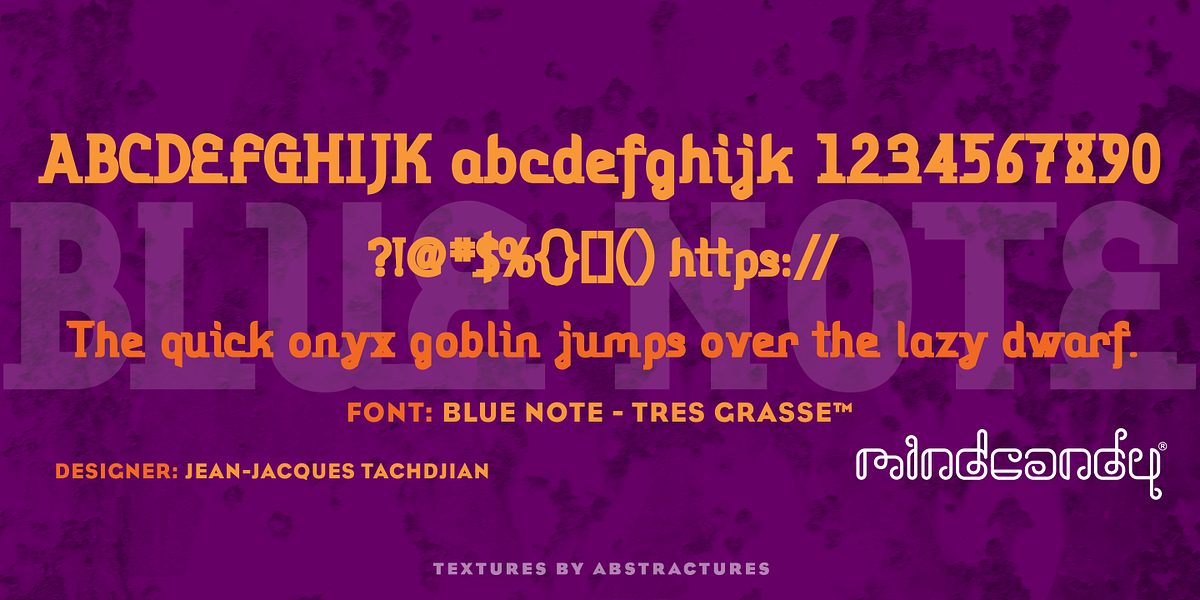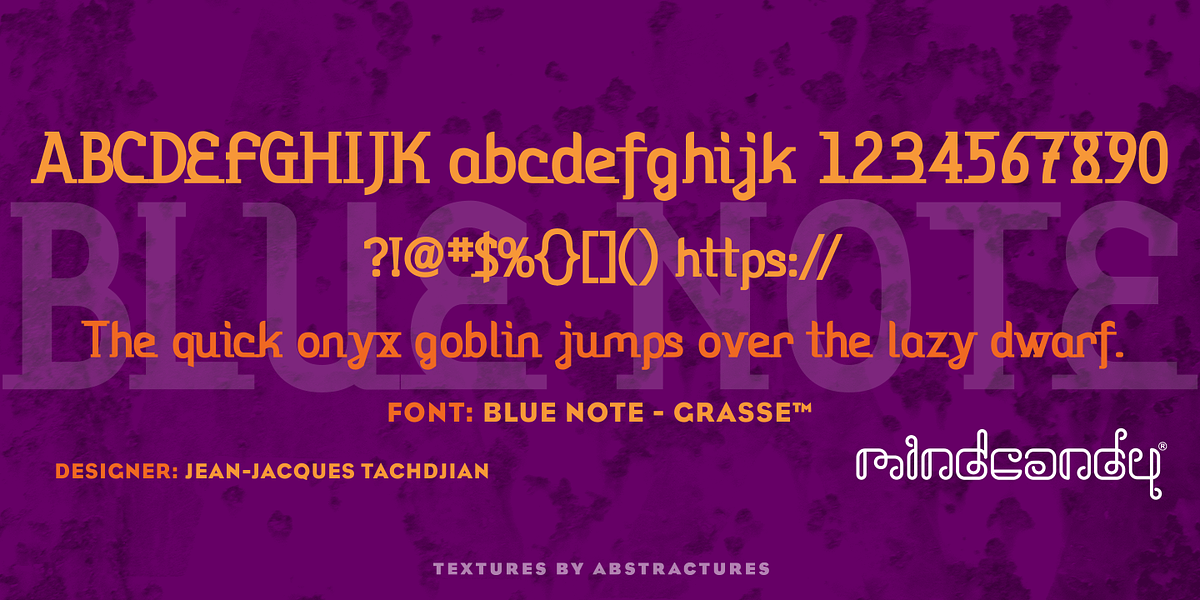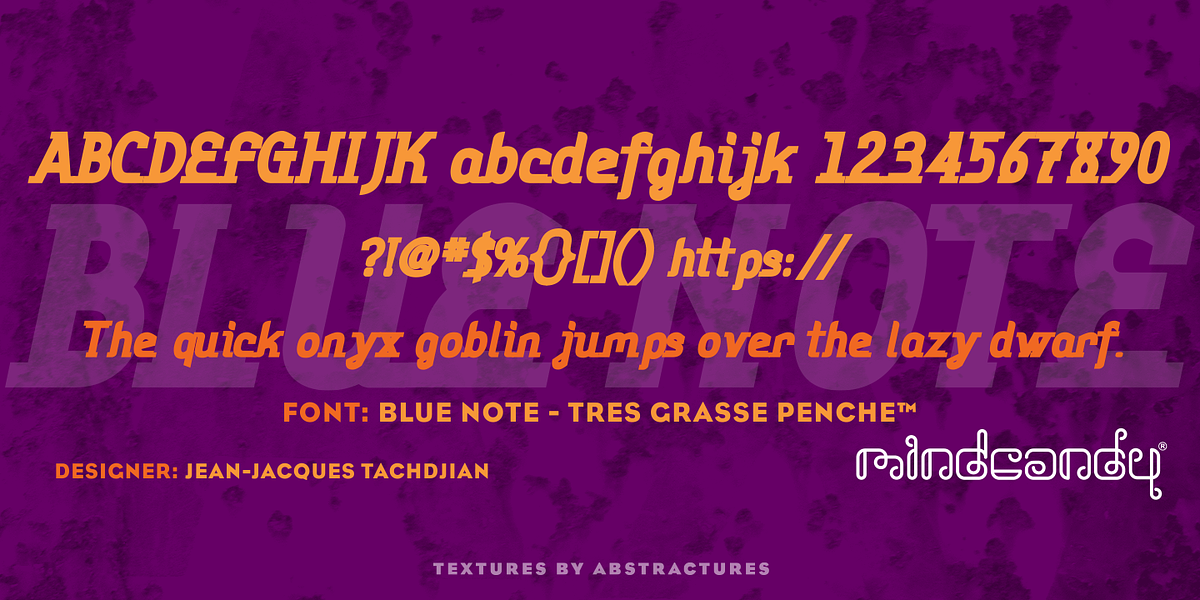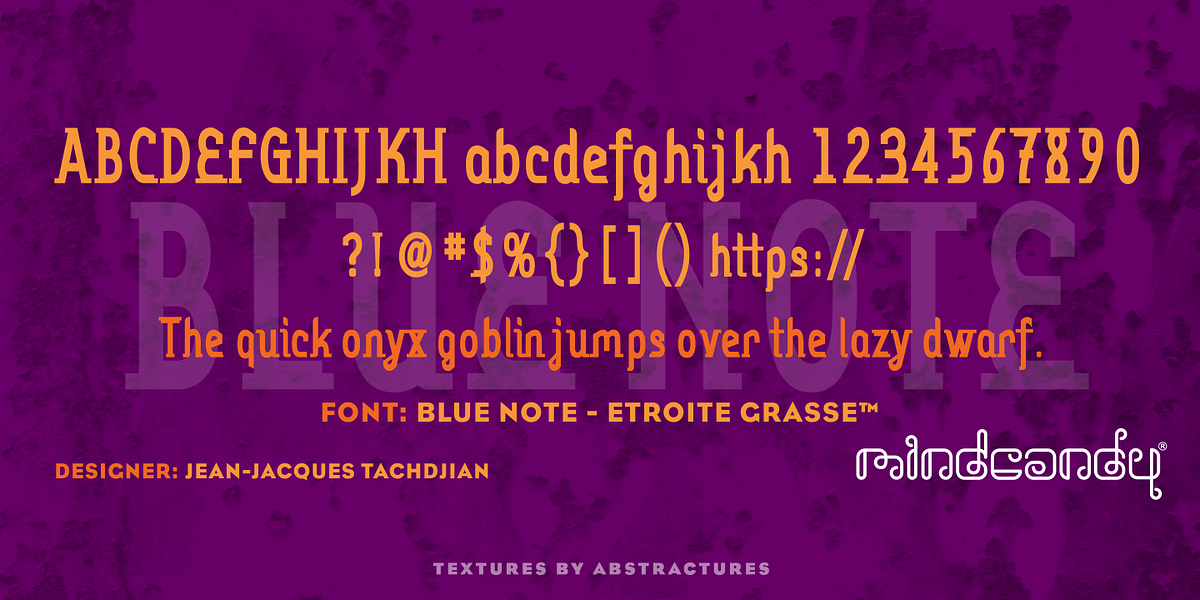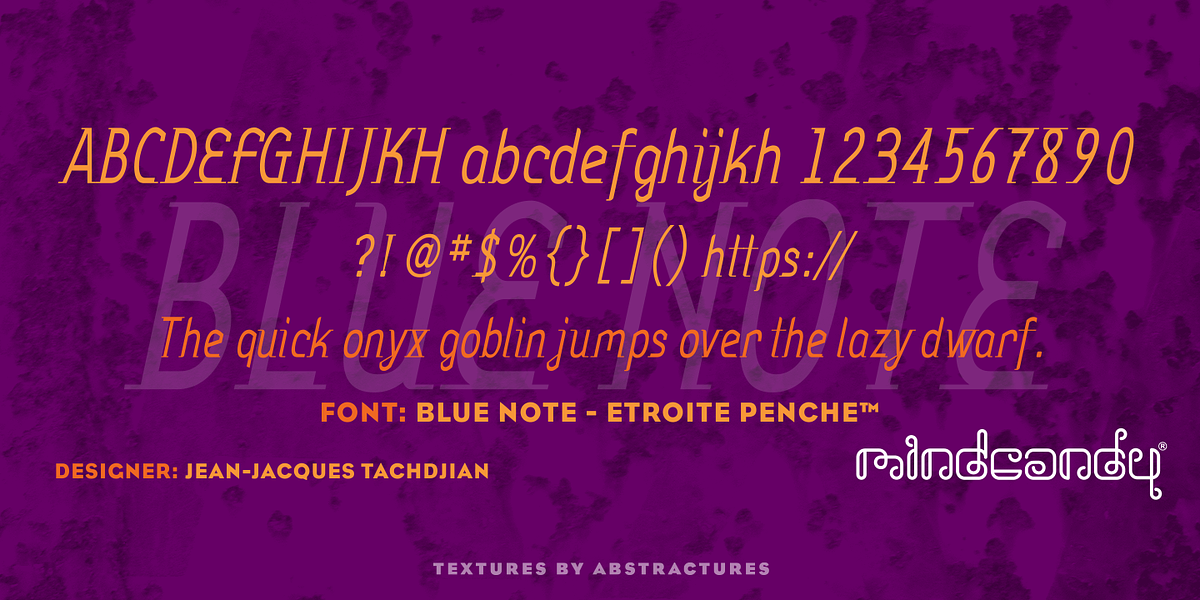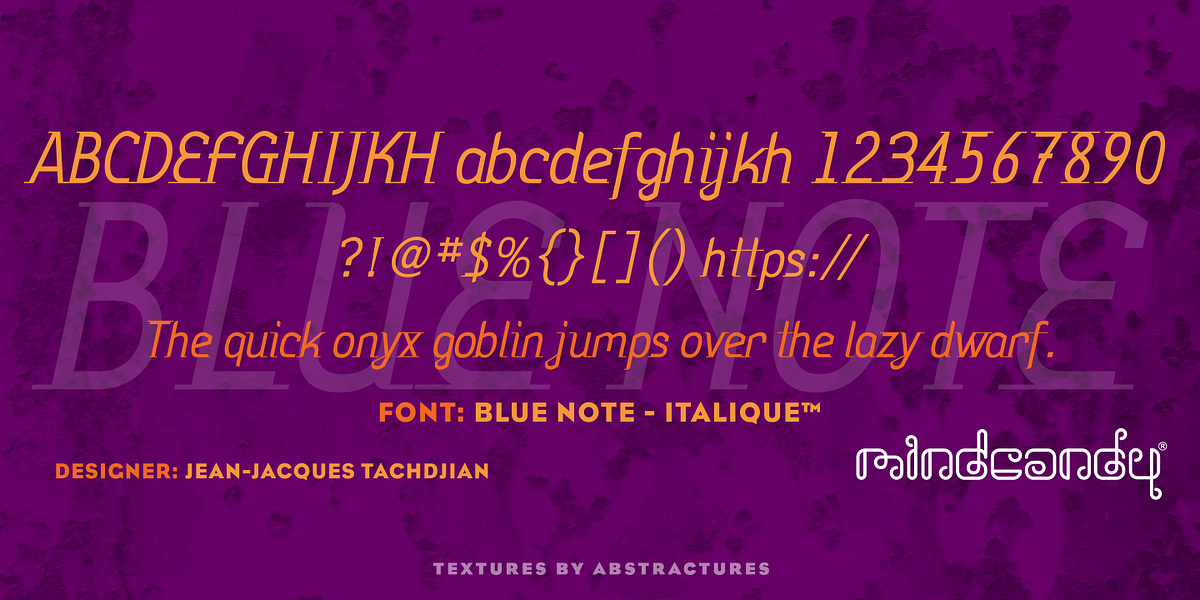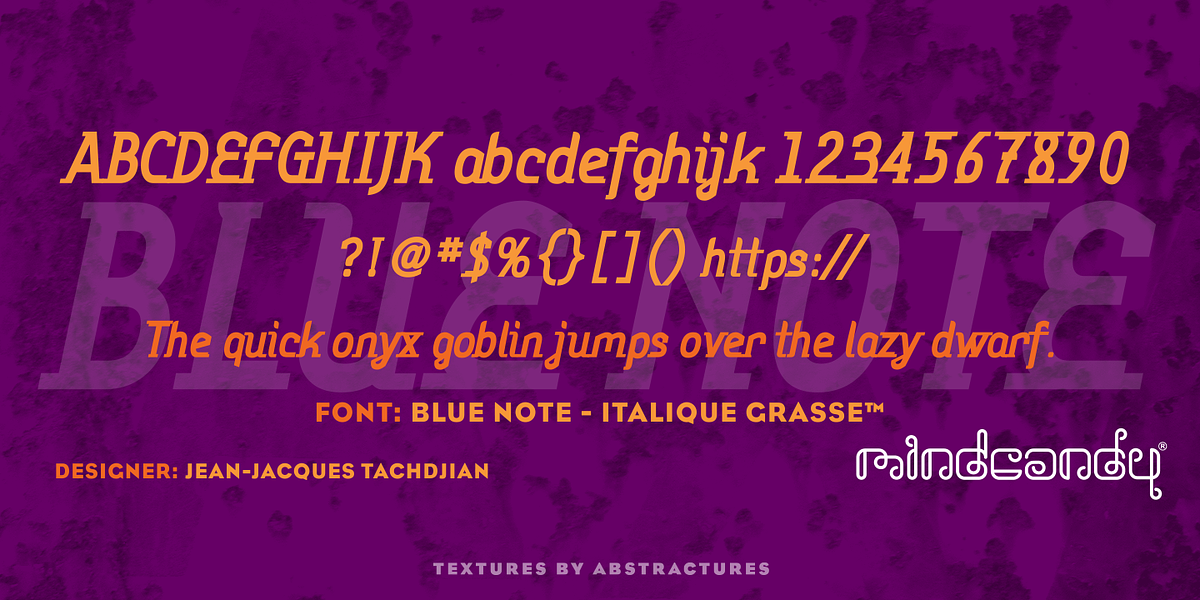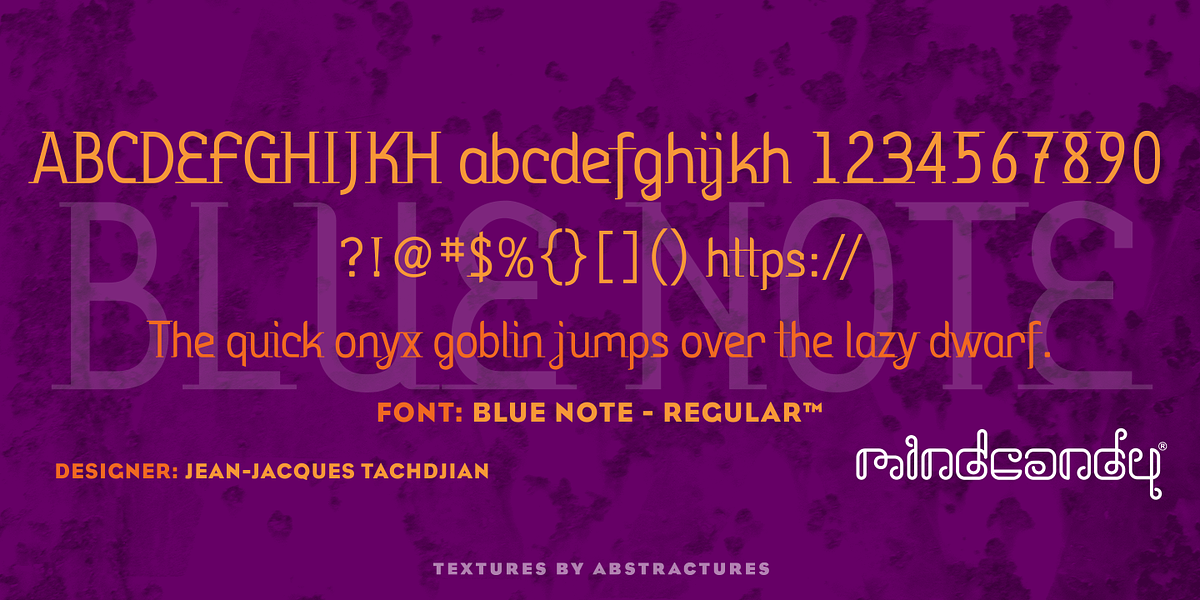
Blue Note™
This font is a novelty display serif designed by Jean-Jacques Tachdjian. It's characterized by its decorative and playful design, making it suitable for headlines and other display purposes.